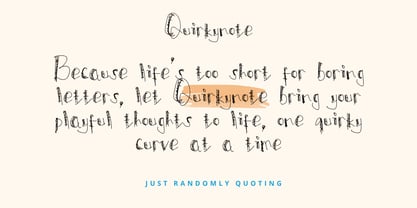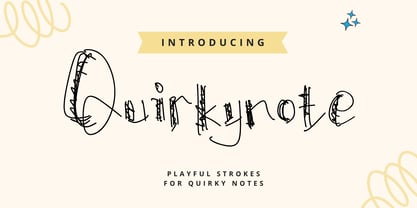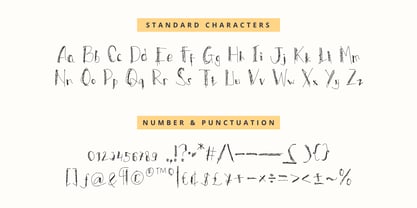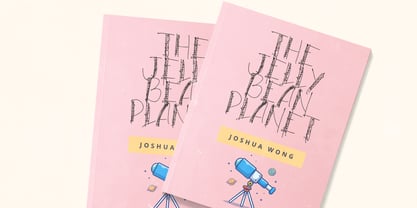
Quirkynote
by Violatype
The Quirkynote Font Family was designed by David Kasidi, Hasna Viola and published by Violatype. Quirkynote contains 1 styles.
Introducing Quirkynote – the font that scribbles outside the lines.
Born from the spontaneity of sketchbook notes and doodles, Quirkynote captures the essence of raw, hand-drawn expression. Its erratic, scratchy lines and playful imperfections make it perfect for projects that dare to be different.
This font is ideal for zines, indie posters, experimental branding, horror aesthetics, handwritten quotes, or anything that calls for bold personality with a quirky twist.
Whether you’re designing for digital or print, Quirkynote delivers chaotic charm in every character.
Designers: David Kasidi, Hasna Viola
Publisher: Violatype
Foundry: Violatype
Design Owner: Violatype